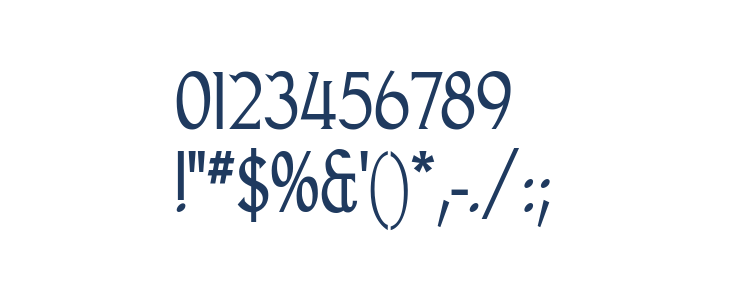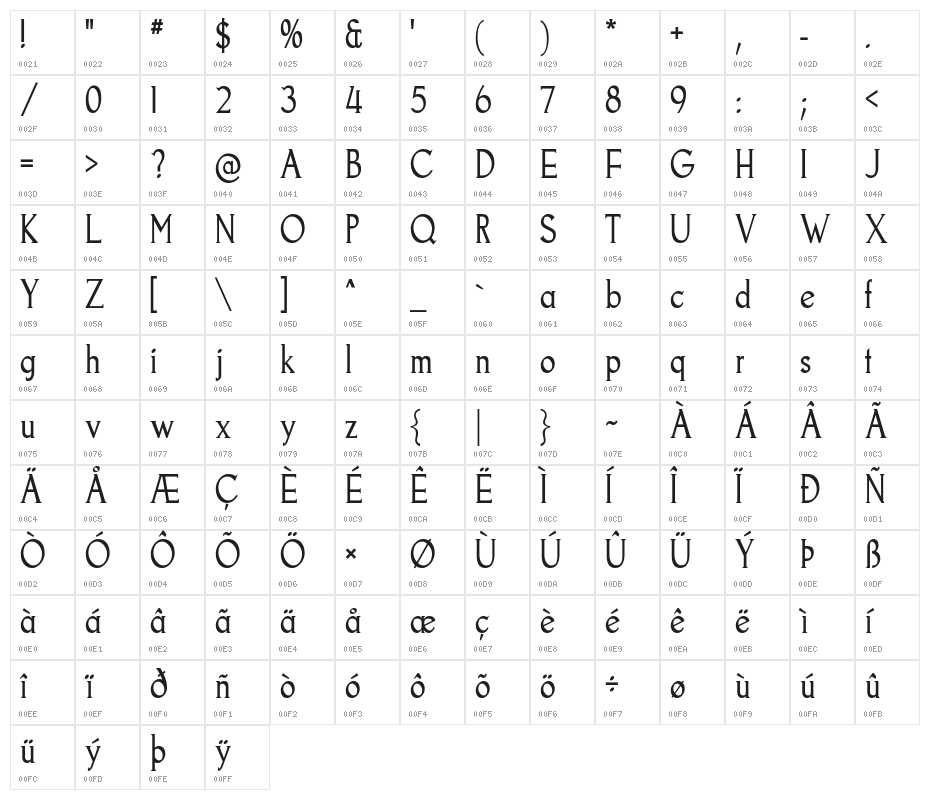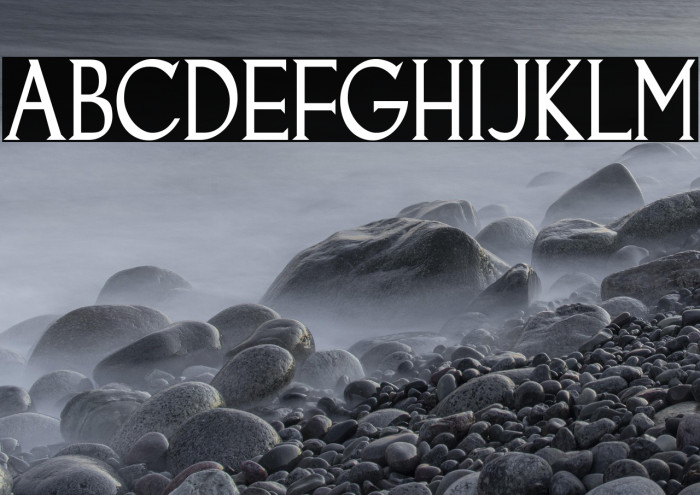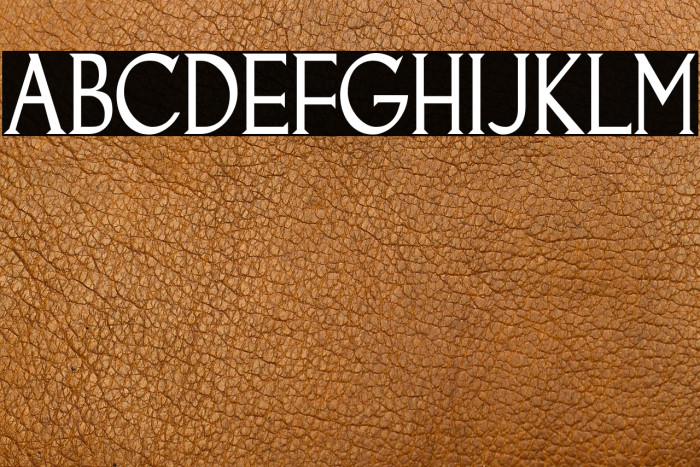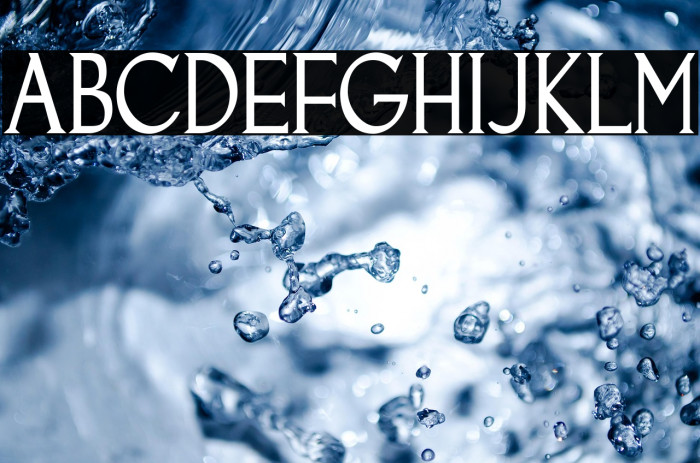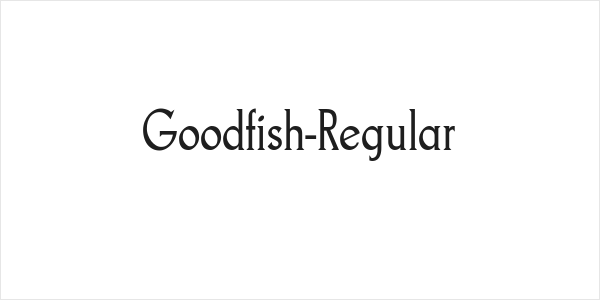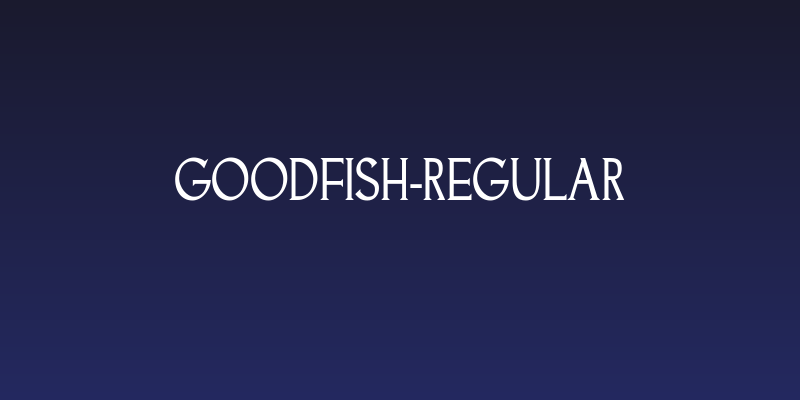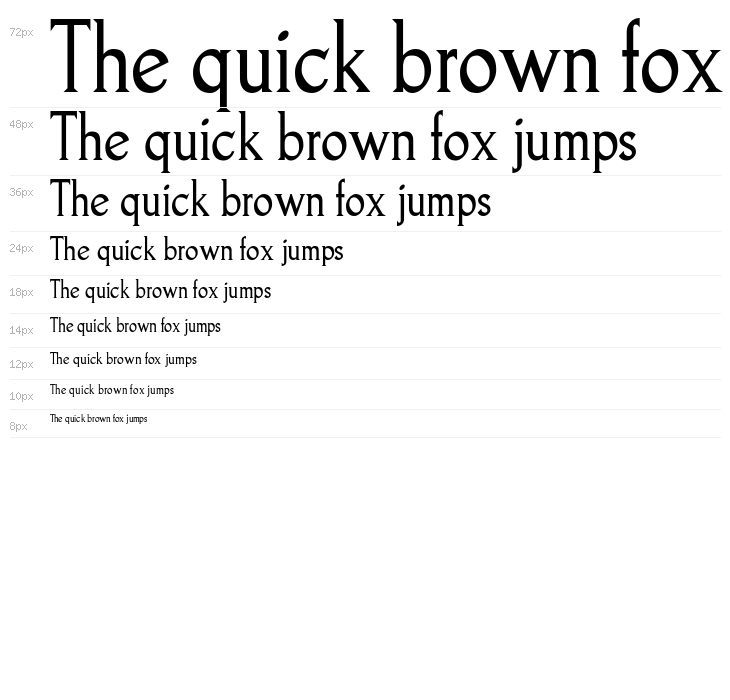
Goodfish-Regular Font
Goodfish-Regular Description
This font features a classic serif style with elegant, sharp serifs that give it a sophisticated and timeless appearance. The uppercase letters are tall and slightly condensed, while the lowercase letters maintain a balanced proportion, offering a harmonious blend of tradition and modernity. The numerals are clear and distinct, ensuring readability. Special characters are well-integrated, maintaining the overall aesthetic. The font's design is suitable for conveying a sense of authority and elegance, making it ideal for formal documents or branding that requires a touch of class.
| Proposed Projects | Ideal for formal documents, branding, book covers, and editorial design. |